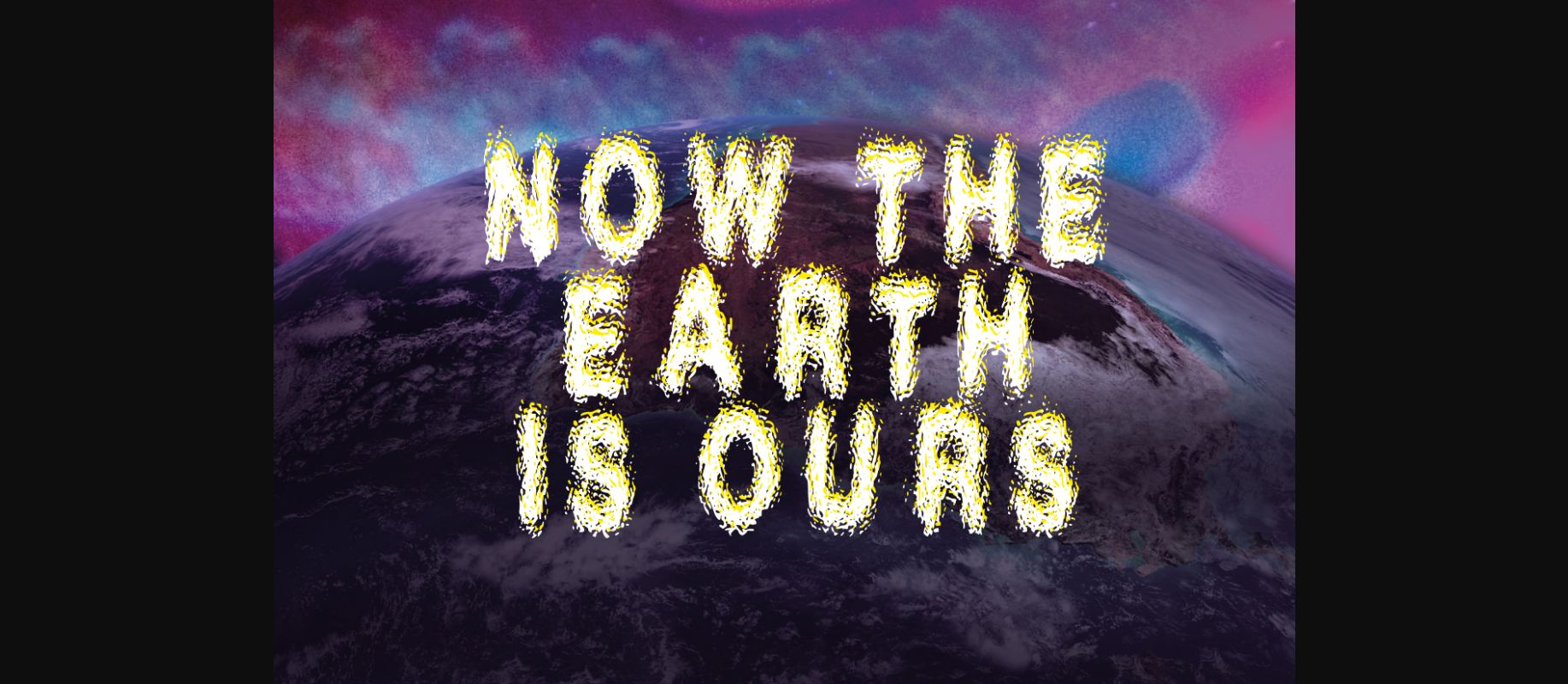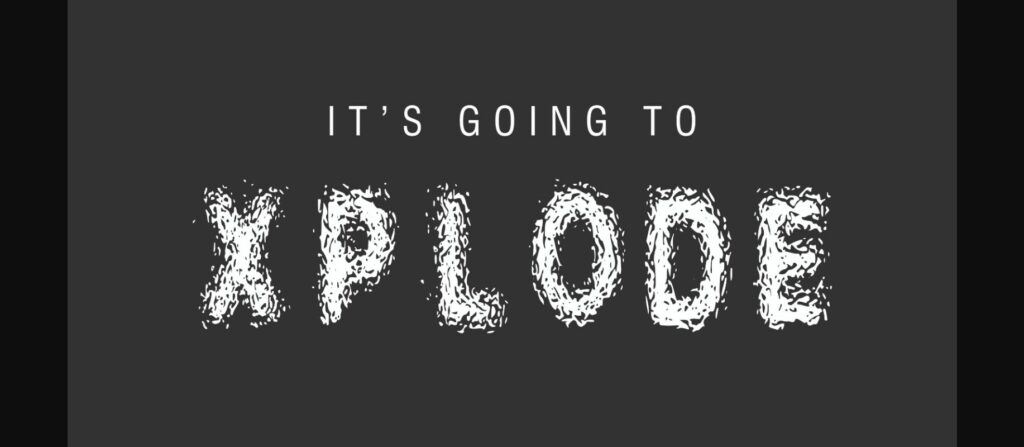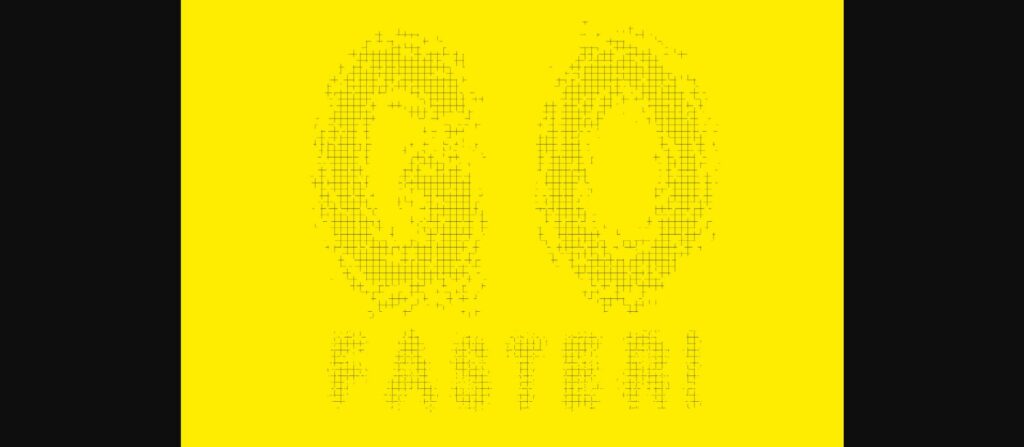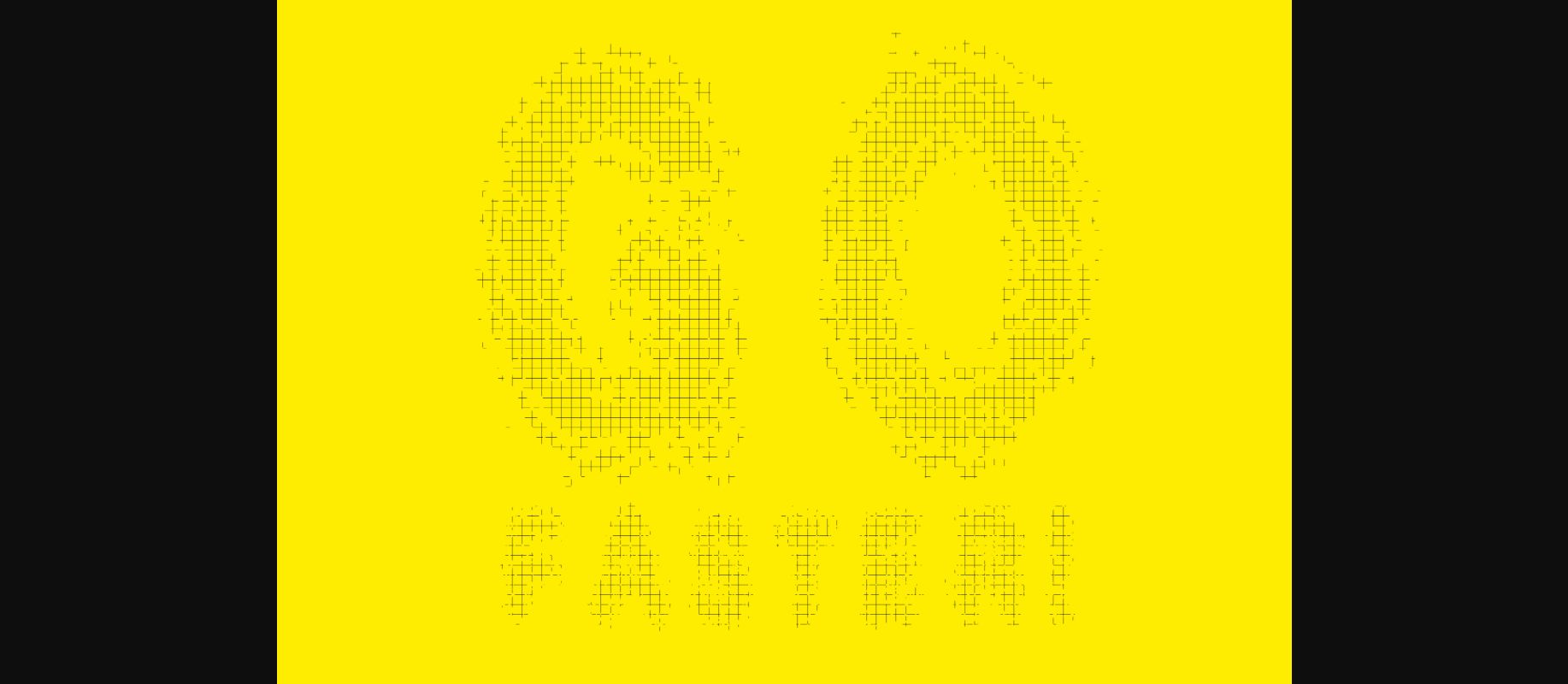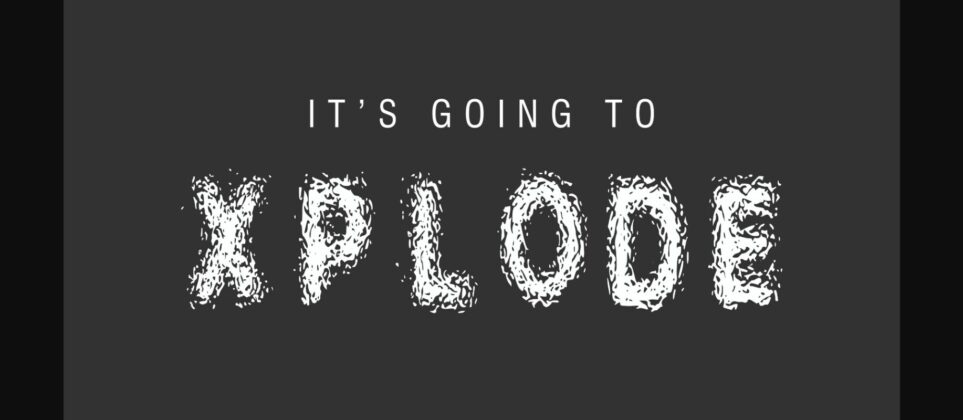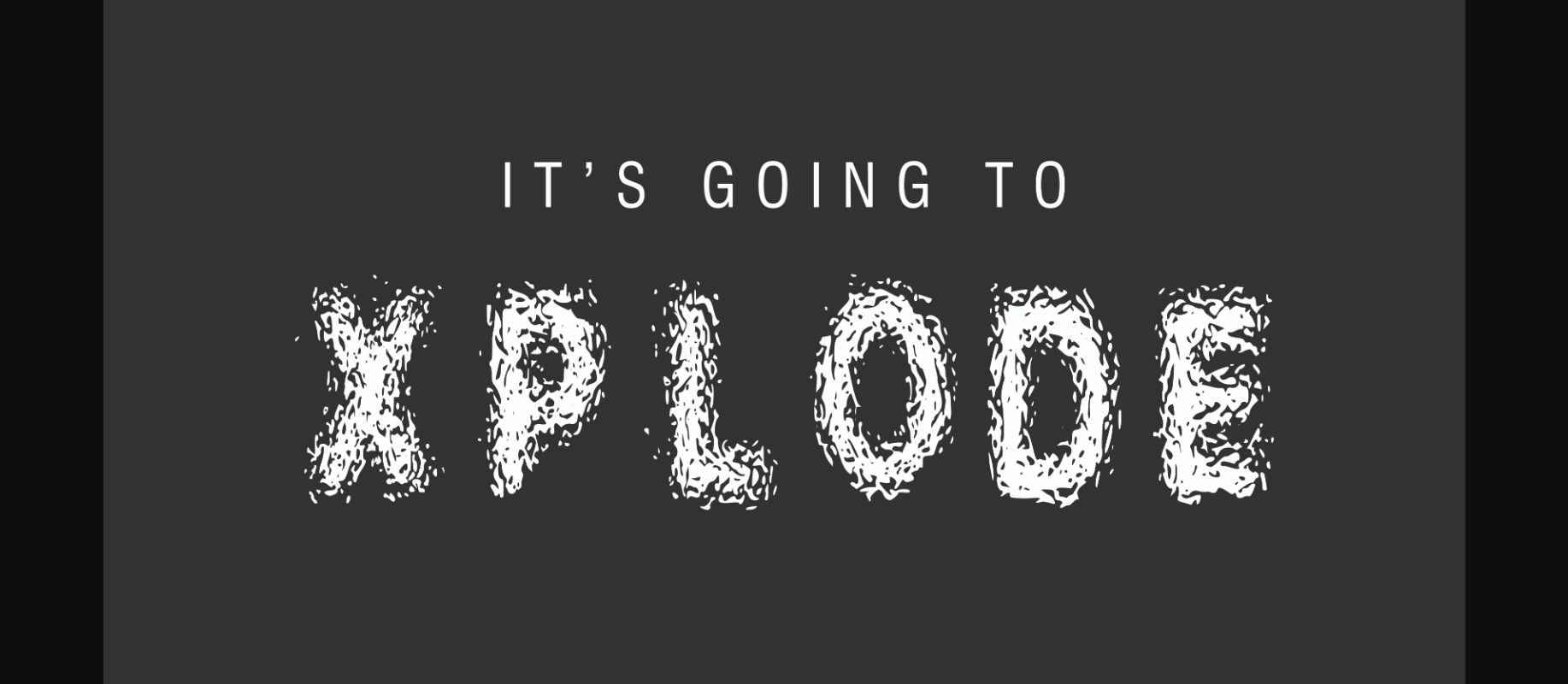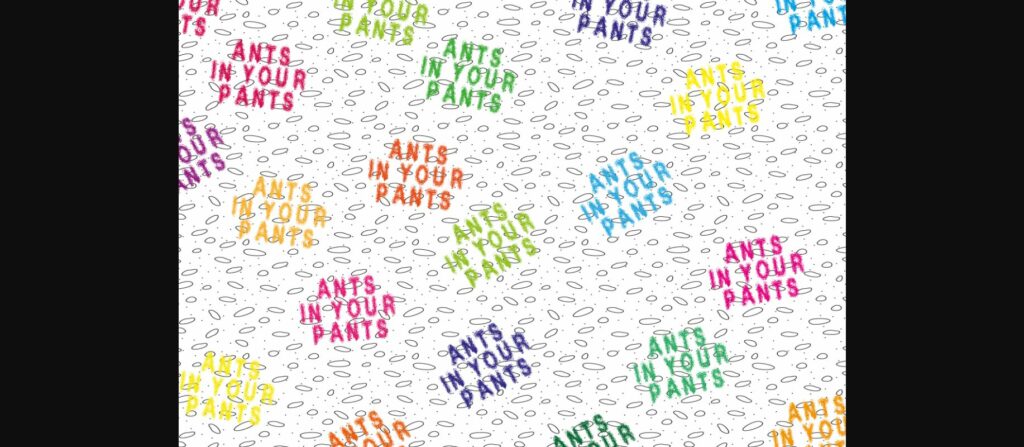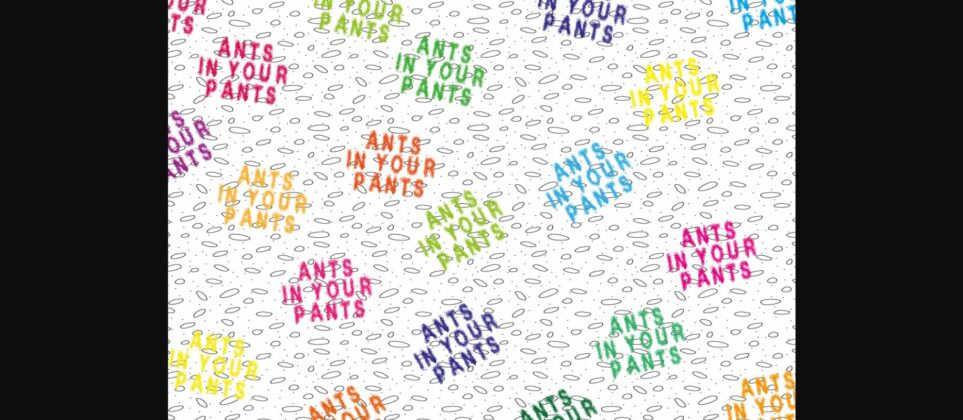
Xplode Font
About Xplode Font
“Xplode is font that is literally in mid explosion. For mad scientists and wannabe wizards that like a pop, bang and fizz in their typography. Use with caution!”